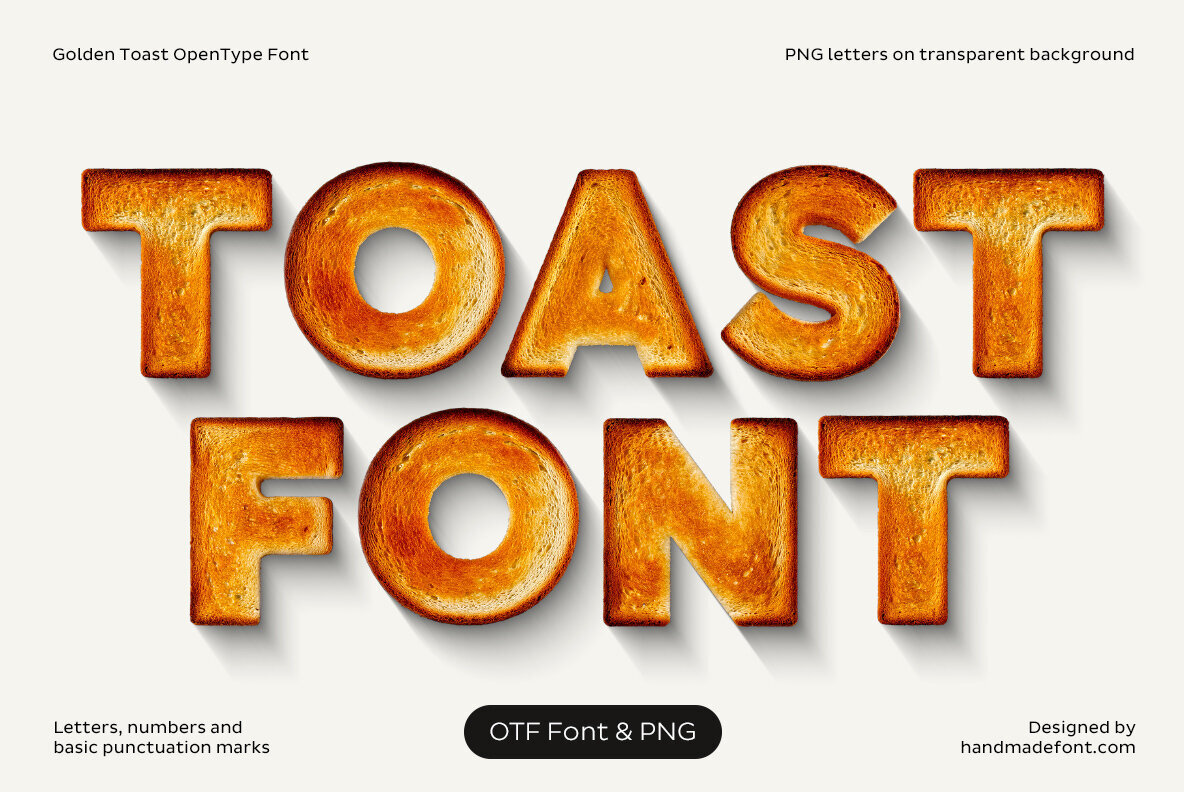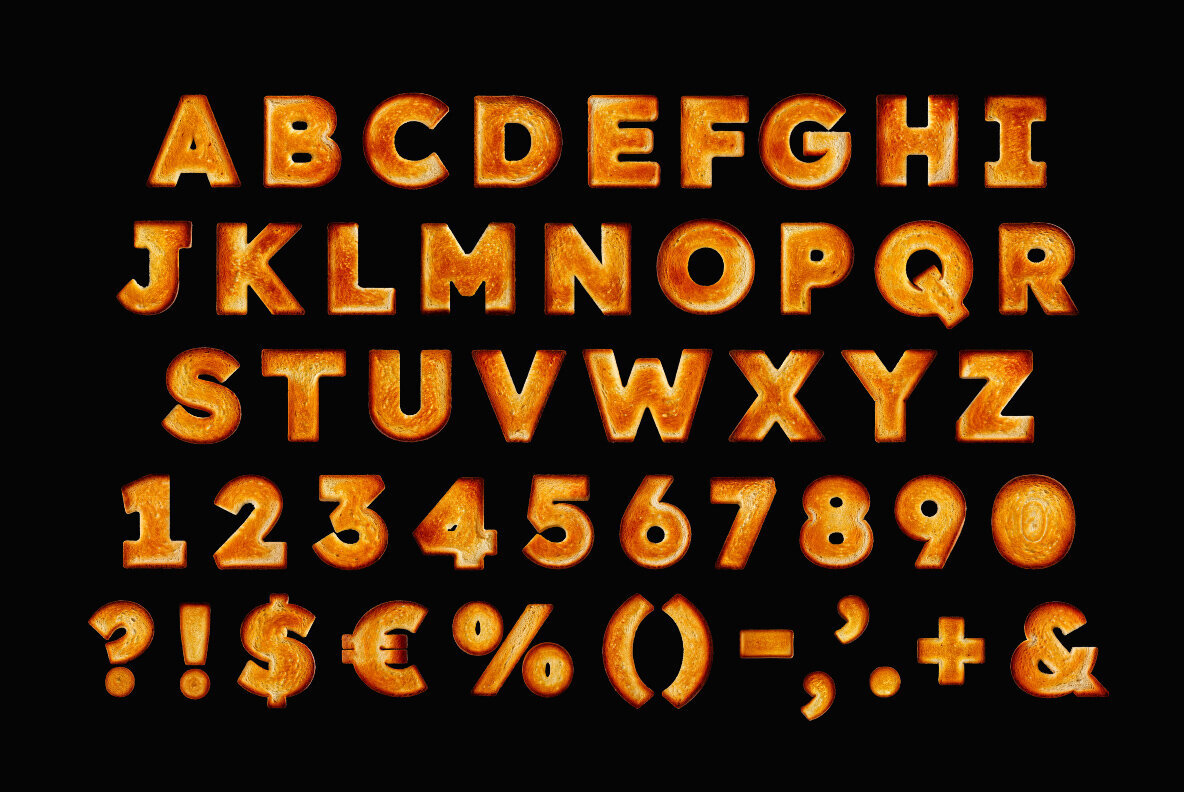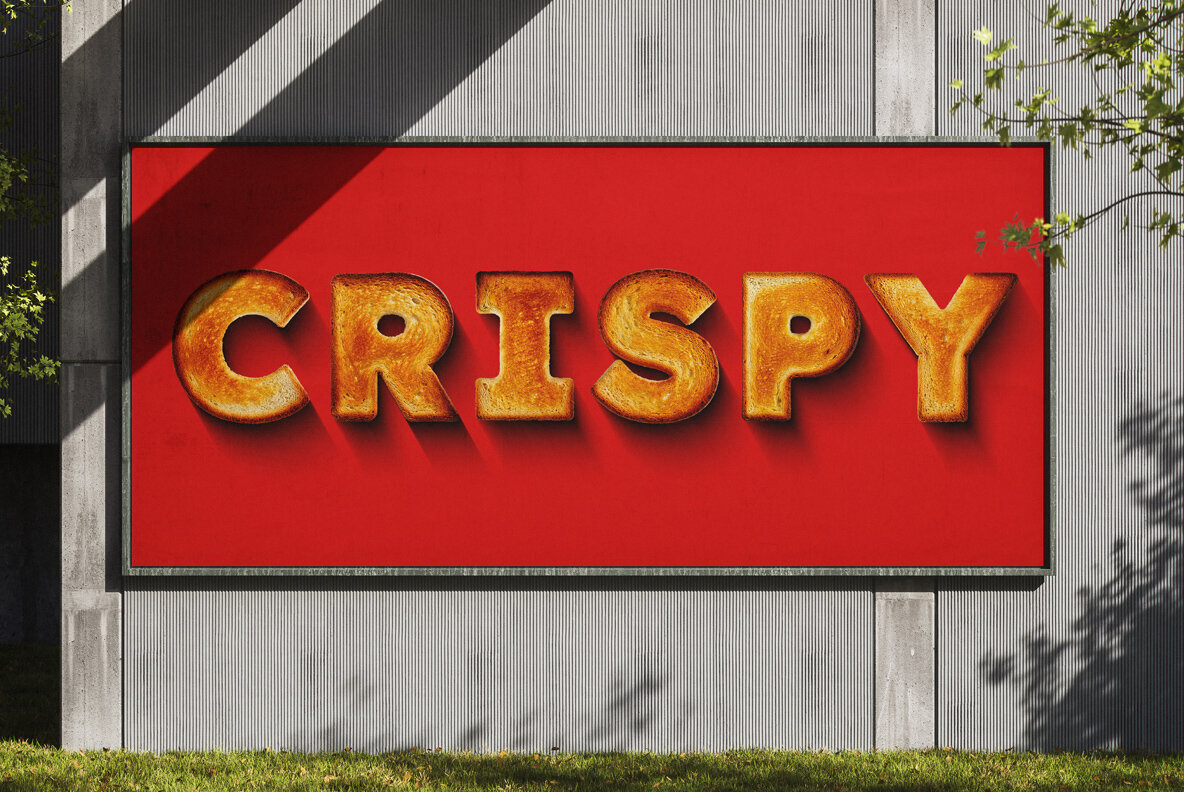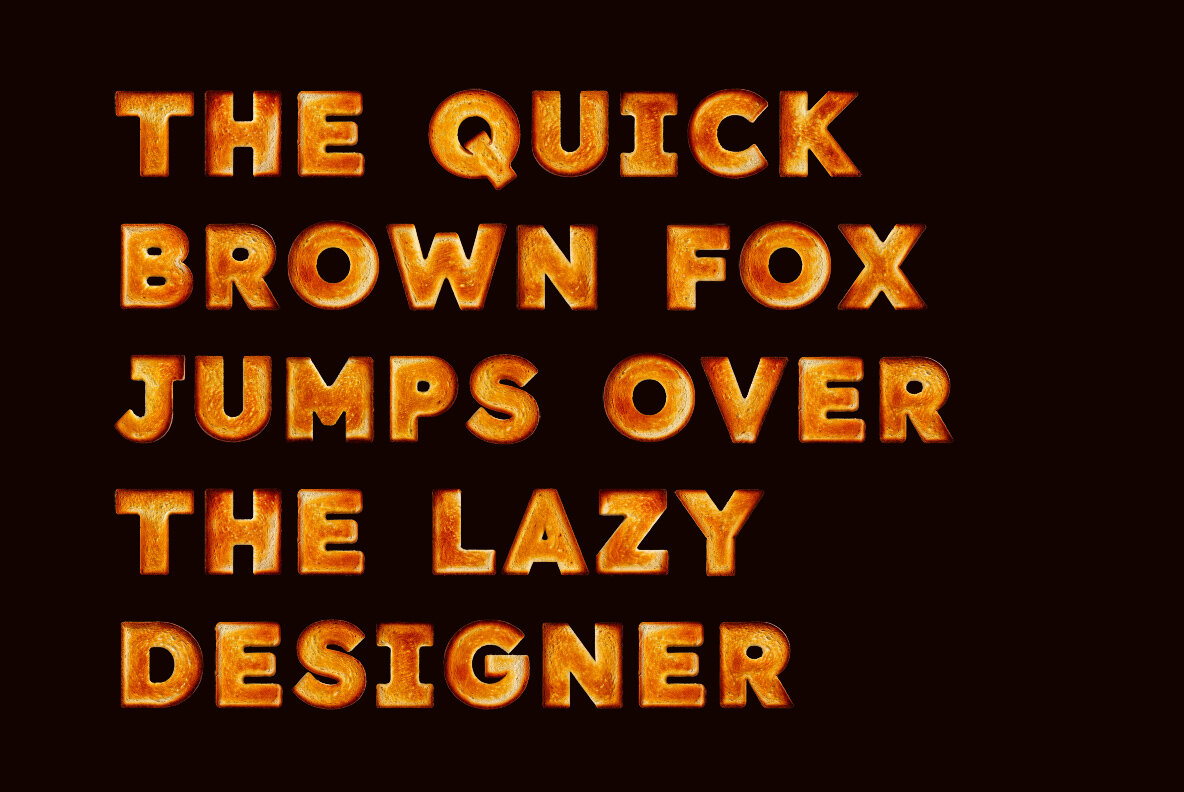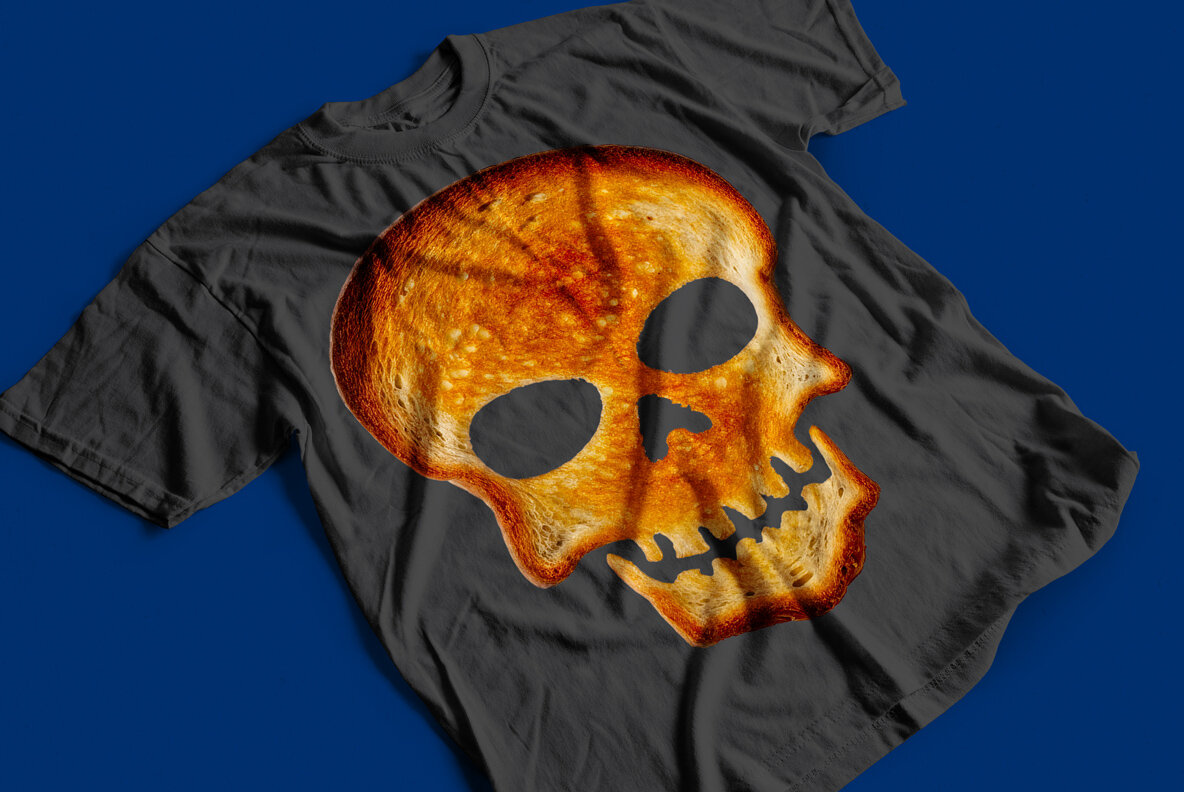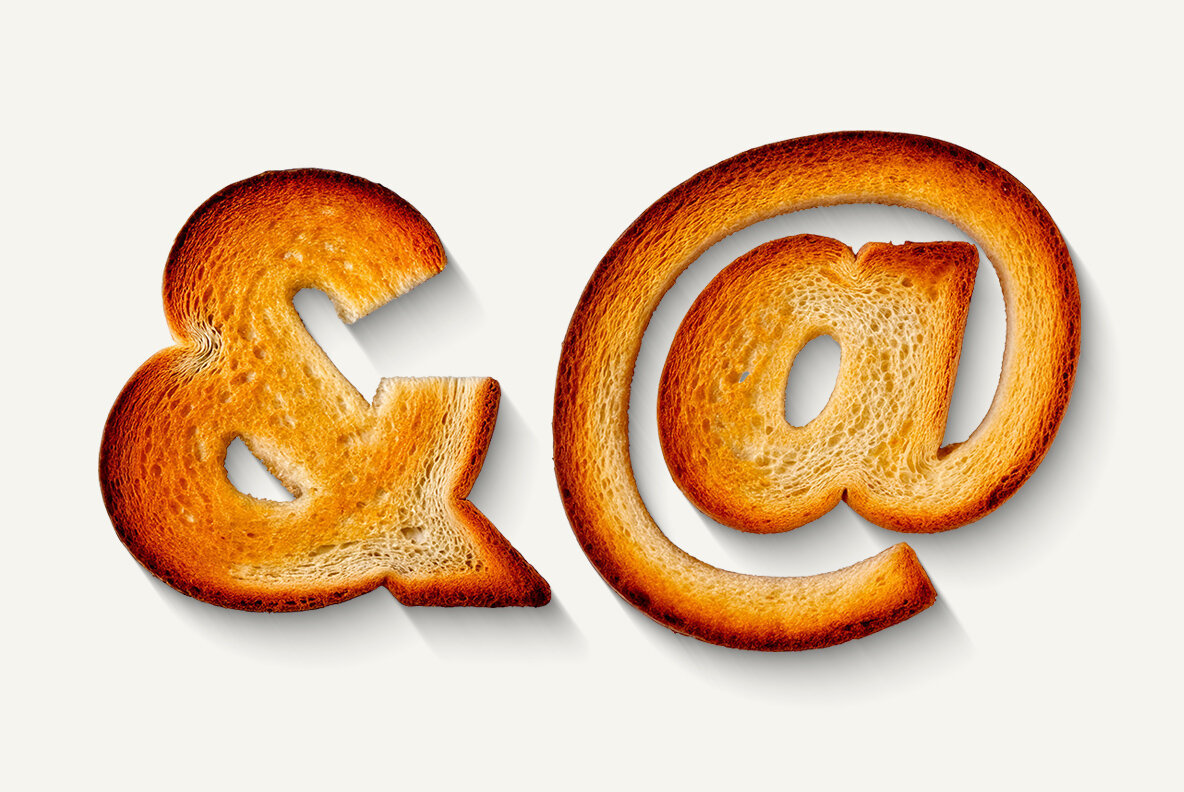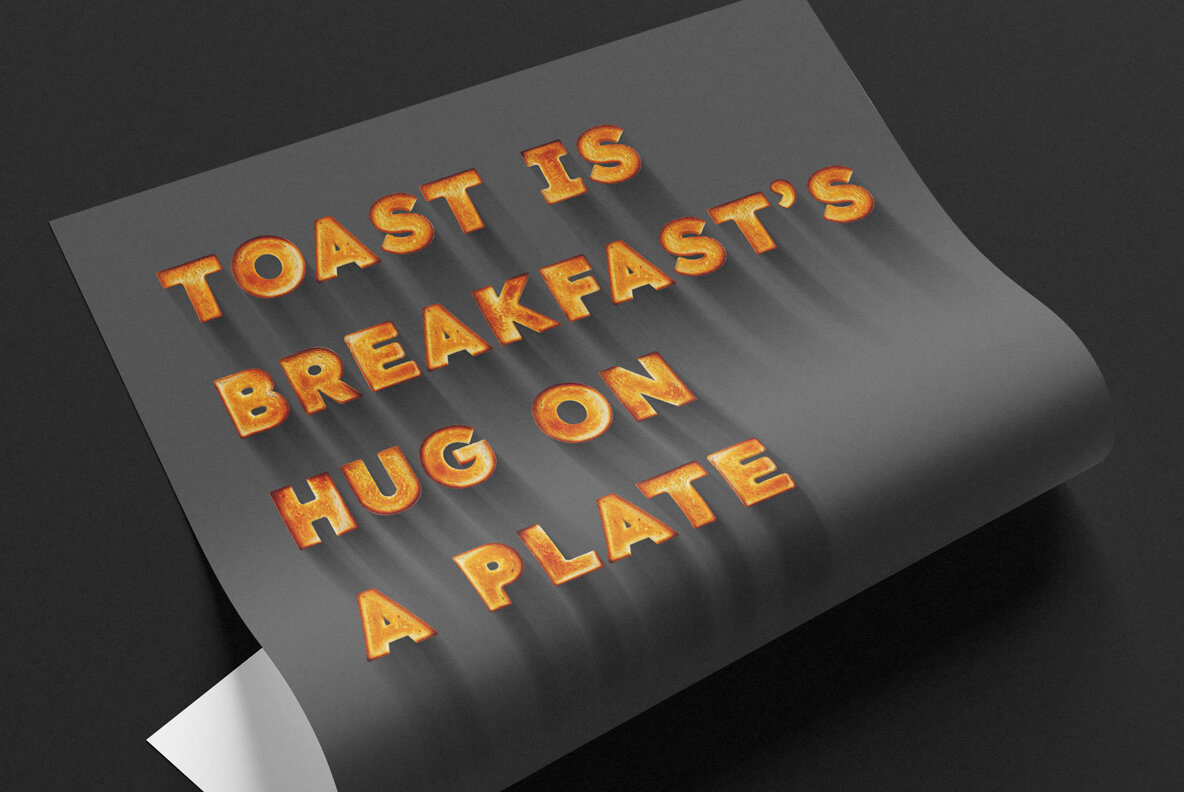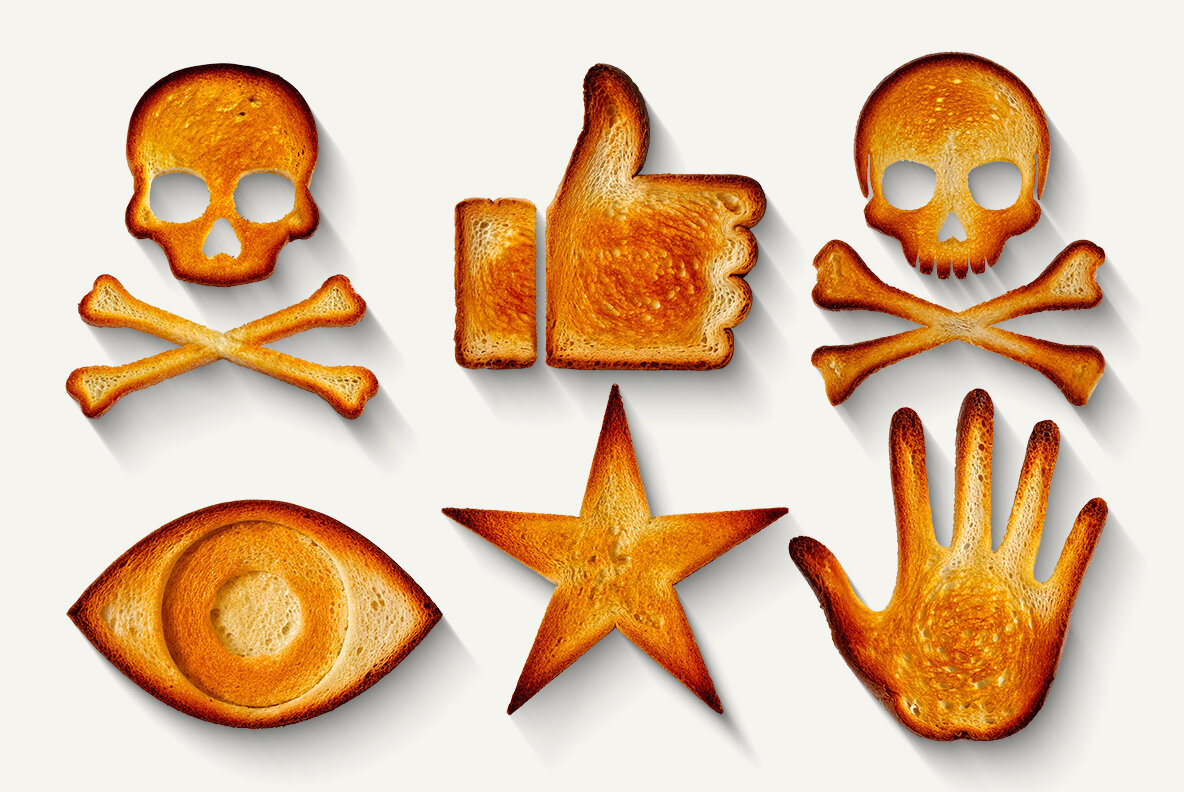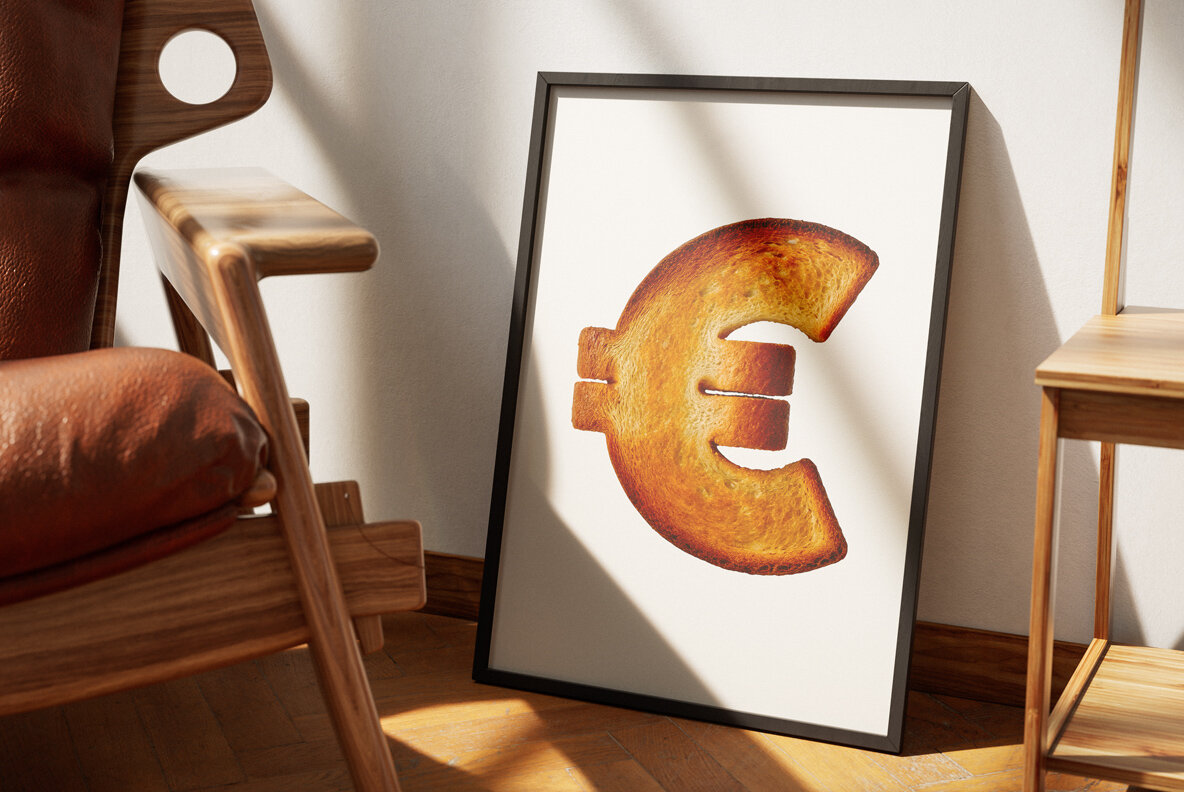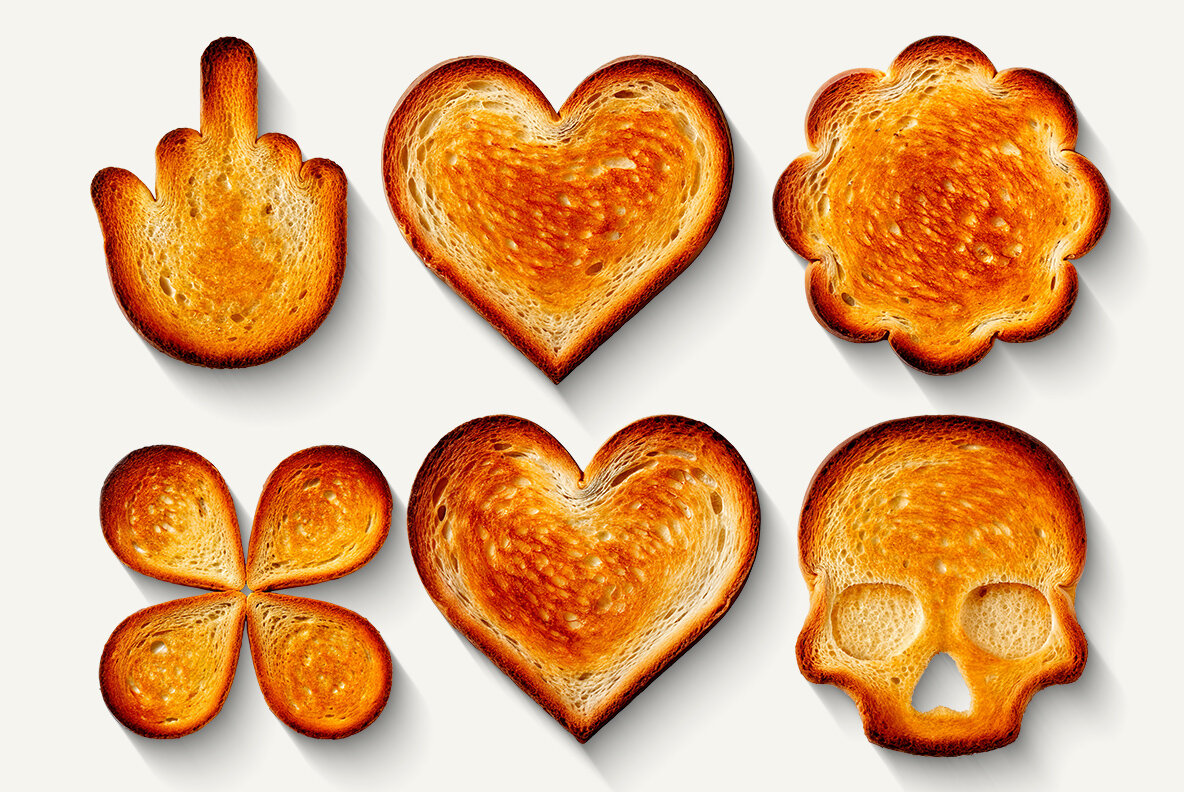
Capturing the essence of breakfast, the Golden Toast Font introduces a playful design with letters resembling toasted bread. Its inviting golden-brown texture and meticulous details make it ideal for food-related branding, bakery packaging, and cozy café menus. Balancing charm with readability, this font ensures your message is both engaging and legible, adding warmth and character to any project. This font boasts high definition as a color OpenType file, displaying beautifully across compatible graphic software such as Photoshop, Illustrator, and more. For those seeking versatility, individual PNG files are available, allowing each letter to be used as a separate high-resolution image, enhancing creative possibilities. While extended punctuation and language support are not embedded within the font files, they are provided as individual image files, offering flexibility for detailed graphic work. With the Golden Toast Font, every design promises to be visually appetizing and memorable.Golden Toast Font: Whimsical Typography for Delightful Projects